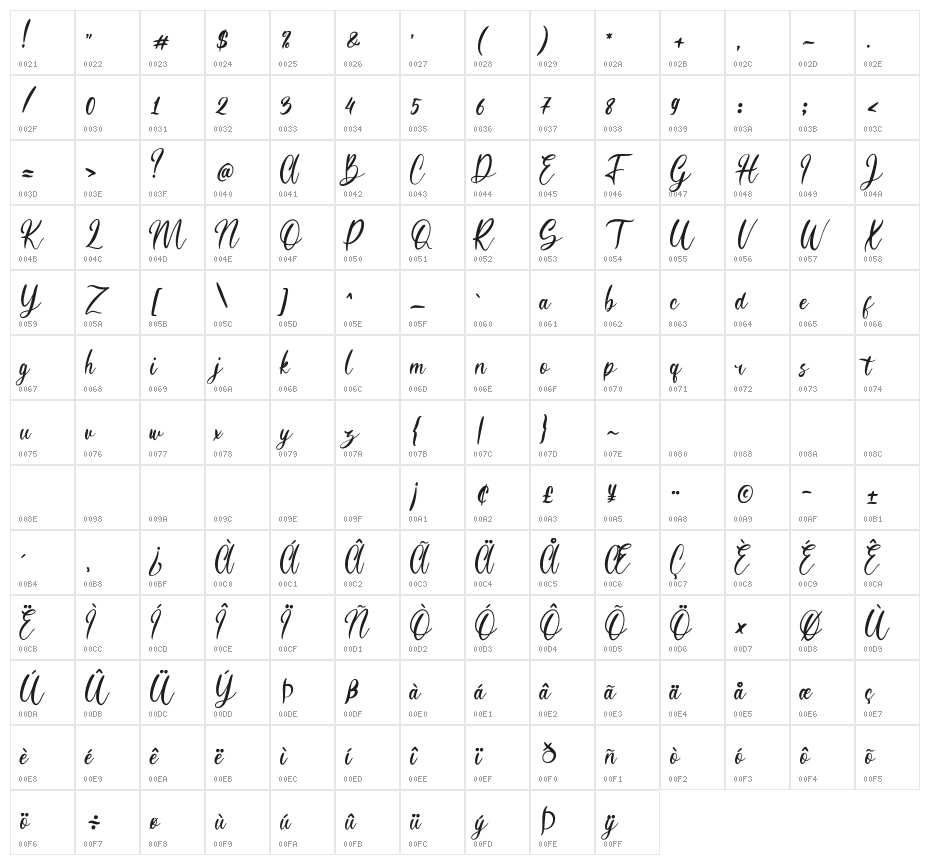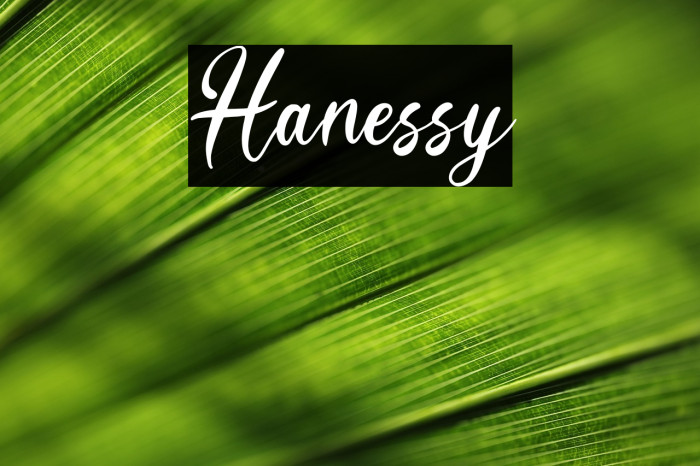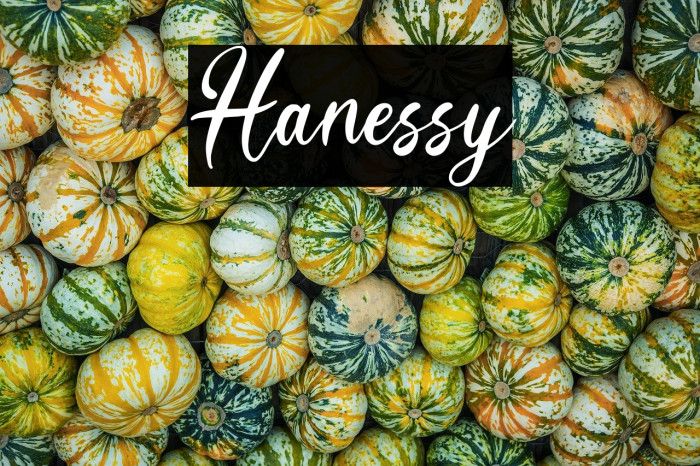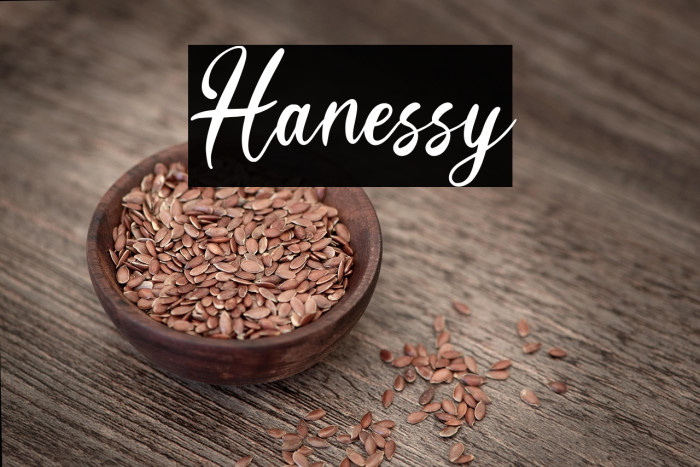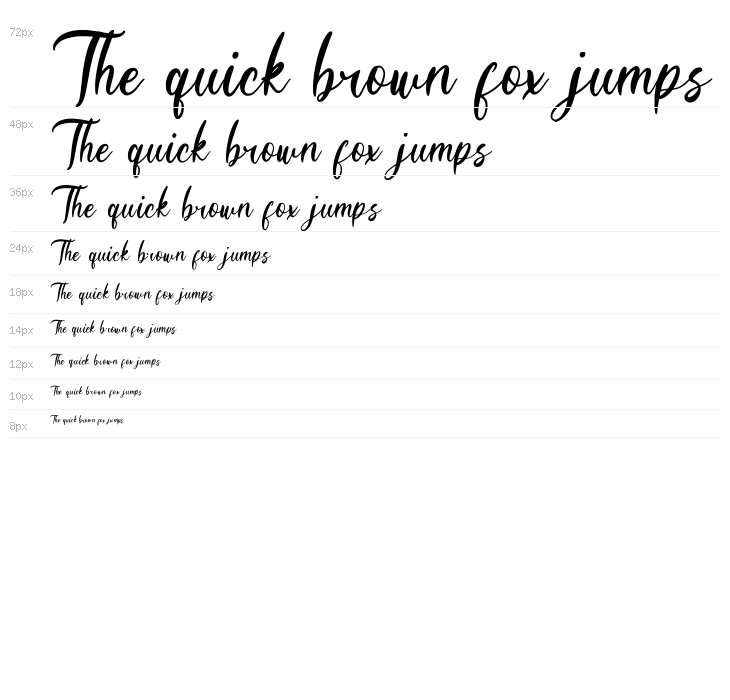
Hanessy Font
Hanessy Description
This font exudes elegance and fluidity with its cursive, handwritten style. The uppercase letters are bold and sweeping, with intricate loops and flourishes that add a touch of sophistication. The lowercase letters maintain a consistent flow, enhancing readability while retaining an artistic flair. Numbers are clear and slightly slanted, complementing the overall script style. Special characters are thoughtfully designed to match the font's aesthetic, ensuring a cohesive look across all text elements. This font is ideal for projects that require a personal, elegant touch.
| Overall Style | Elegant, Decorative |
| Use Case | Logos, Invitations, Personal Branding |
| Proposed Projects | Ideal for wedding invitations, greeting cards, personal branding, and elegant logos. |